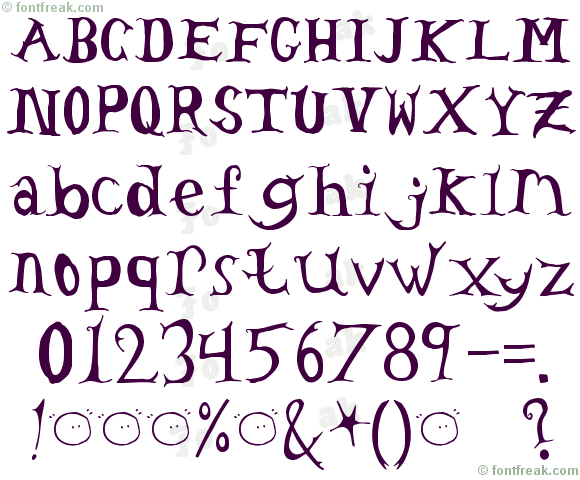
Tom's Headache
Tom's Headache is a distinctive decorative font designed by Divide By Zero, categorized primarily as a display typeface. This font showcases a playful, whimsical style that captures attention with its unique character shapes and quirky visual elements. The strokes exhibit a medium weight, complemented by a slightly uneven texture that lends a hand-drawn feel, making it ideal for creative projects that require a touch of individuality.
Visually, Tom's Headache features irregular letterforms that create a lively, informal aesthetic. The spacing between characters is deliberately varied, enhancing its playful appearance. Decorative elements, such as exaggerated curves and playful serifs, contribute to its charm, making it a suitable choice for designs aimed at evoking a sense of fun or whimsy.
This font shines in a variety of applications, including wedding invitations where its quirky style can add a personal touch, movie posters that seek to convey a lighthearted theme, and restaurant menus that highlight a casual dining experience. Additionally, it can be effectively used in children's book covers or playful branding projects, appealing to a youthful audience.
What sets Tom's Headache apart is its ability to blend whimsy with versatility, allowing it to adapt to various design contexts while still maintaining a strong visual identity. This font is perfect for anyone seeking to make a memorable impression through their typography, ensuring that your projects stand out in a crowded design landscape.